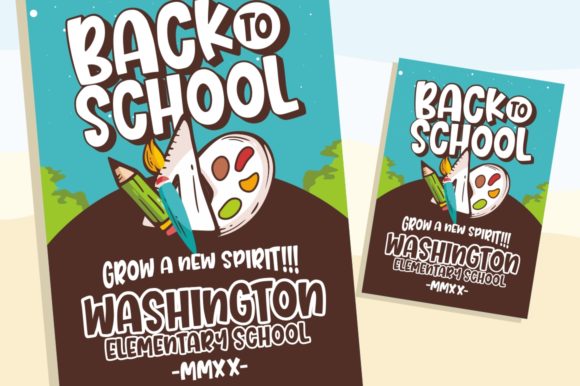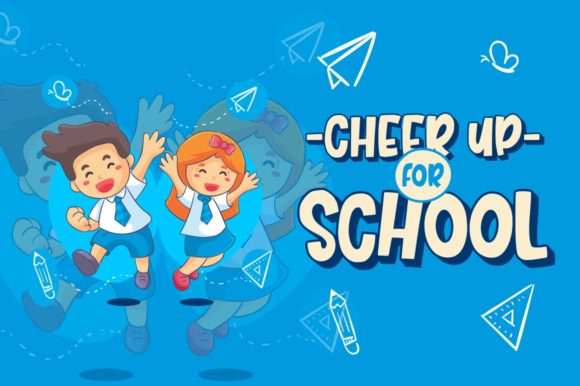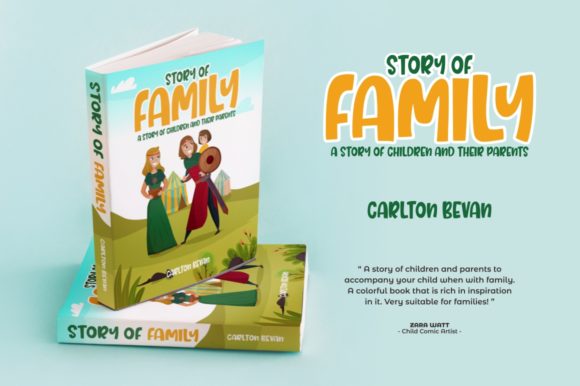
Introduction to Dulce Chico Font
Dulce Chico is a fun, playful and adventurous display font that will add a cartoonish vibe to any design project.
Amongst many other things, it will look great in school or kids themed projects .
Key Features of Dulce Chico Font
Why Choose Dulce Chico Font?